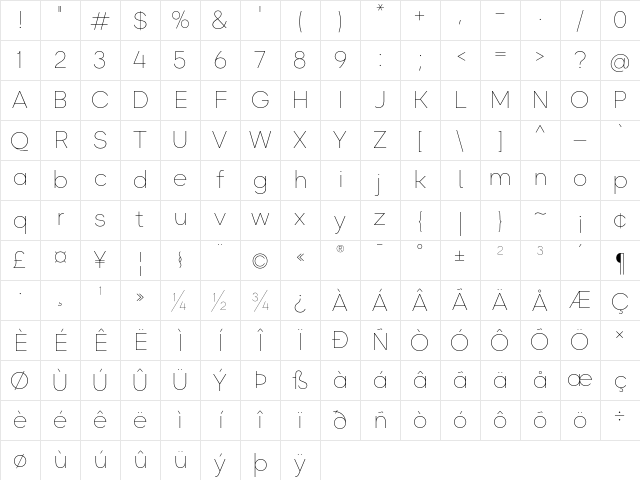
Okta is a composed and adaptable typeface that performs quietly and consistently across a wide range of design contexts. Its slender proportions lend an understated elegance to any composition.